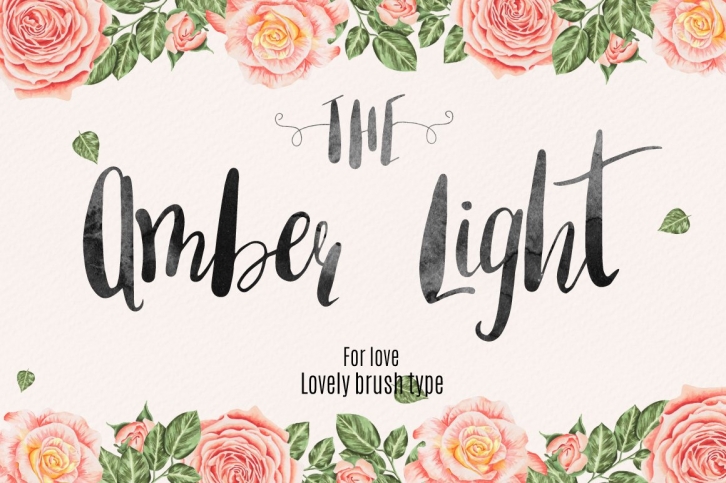
Amber Light
It's hand lettered and modern script font. The script comes with alternates and ligatures.
This fonts are perfect for your blog or postcard for wedding. Also with their help, you can create a logo or beautiful frame for your home. Or just use for your small business, book covers, stationery, marketing, magazines.
This font includes Lowercase Ending with Swirl, Lowercase Initial with Swirl, Alternative Lowercase Ending, Alternative Uppercase with Swirl and Double Letters.